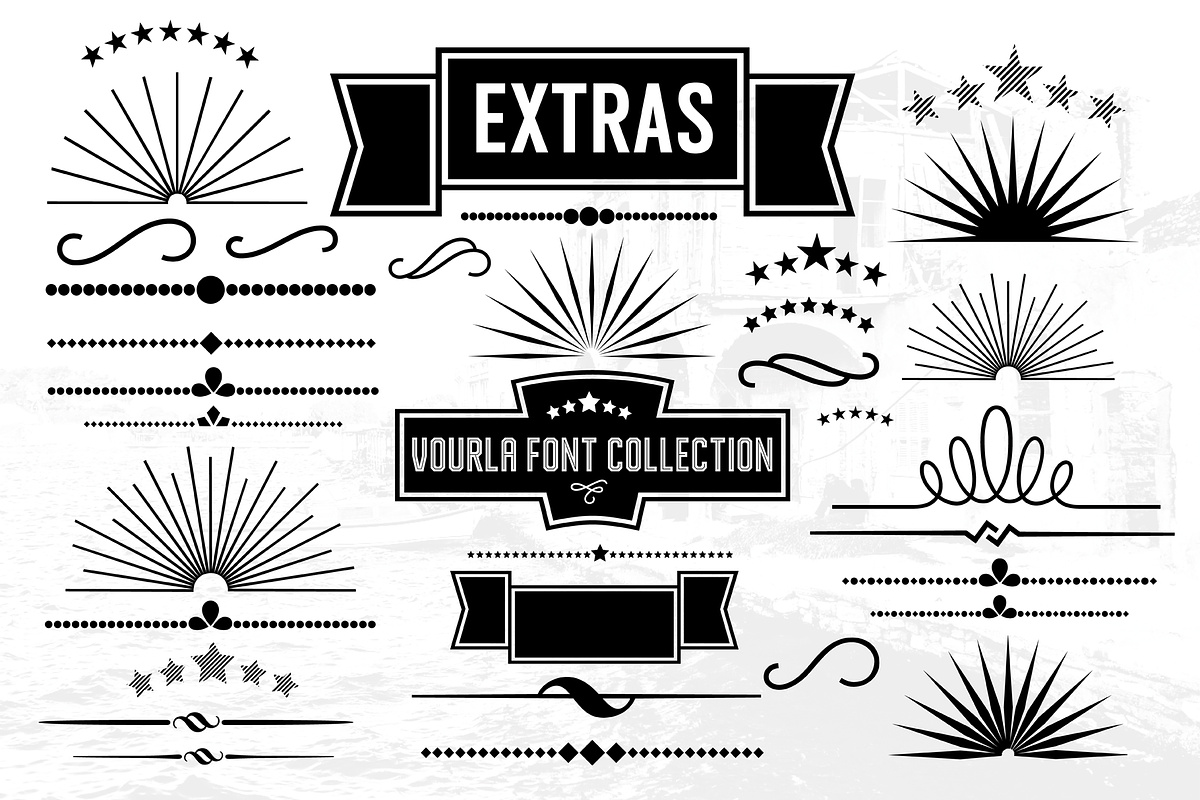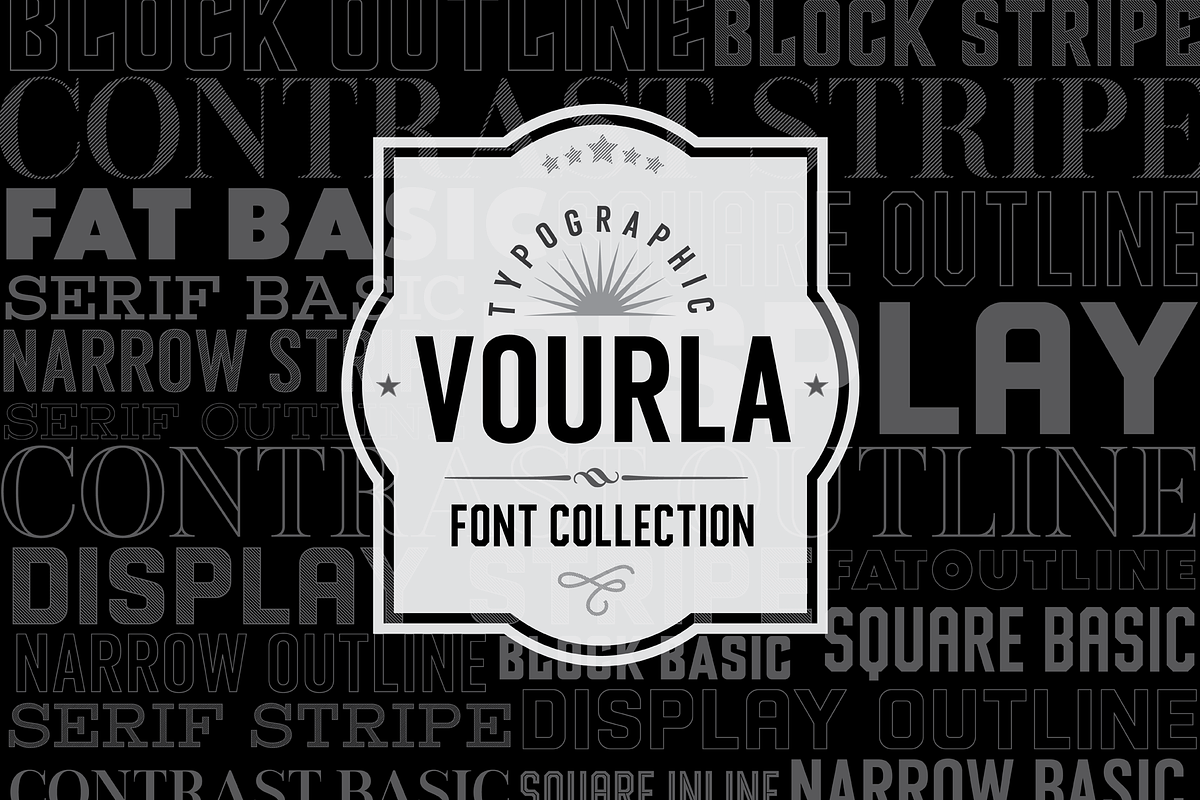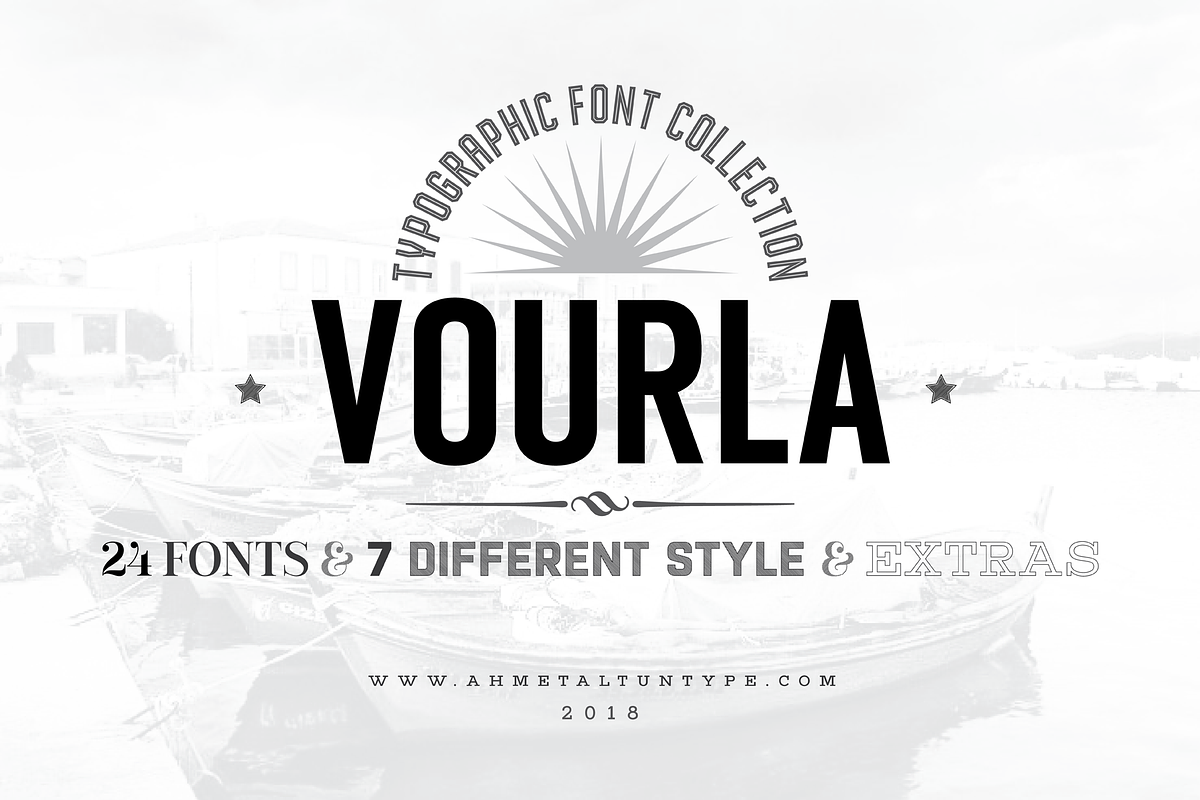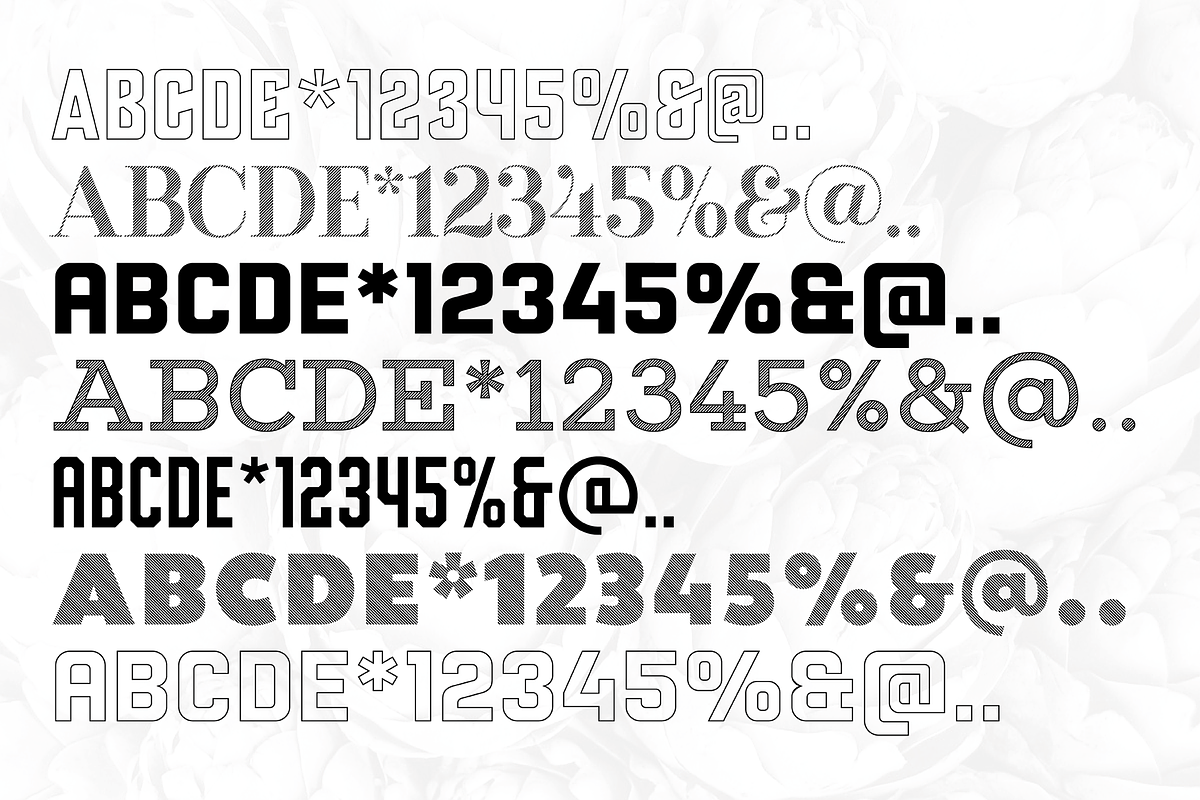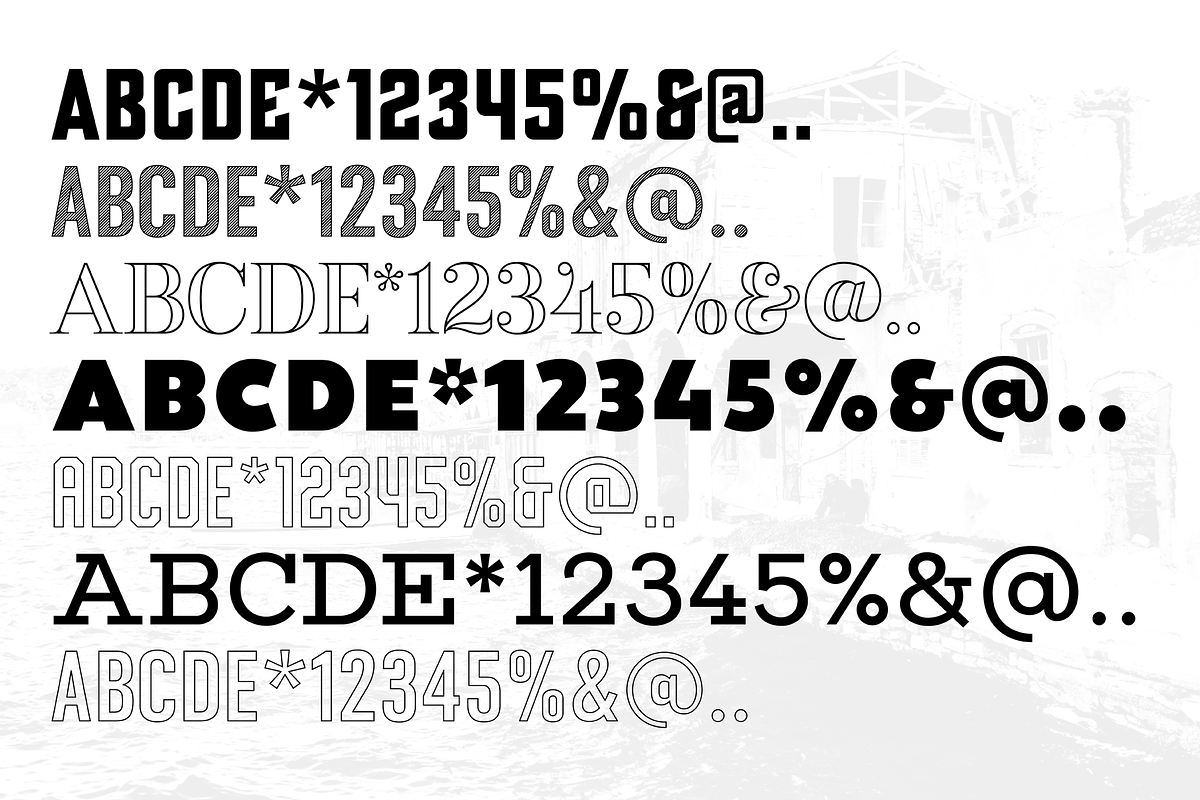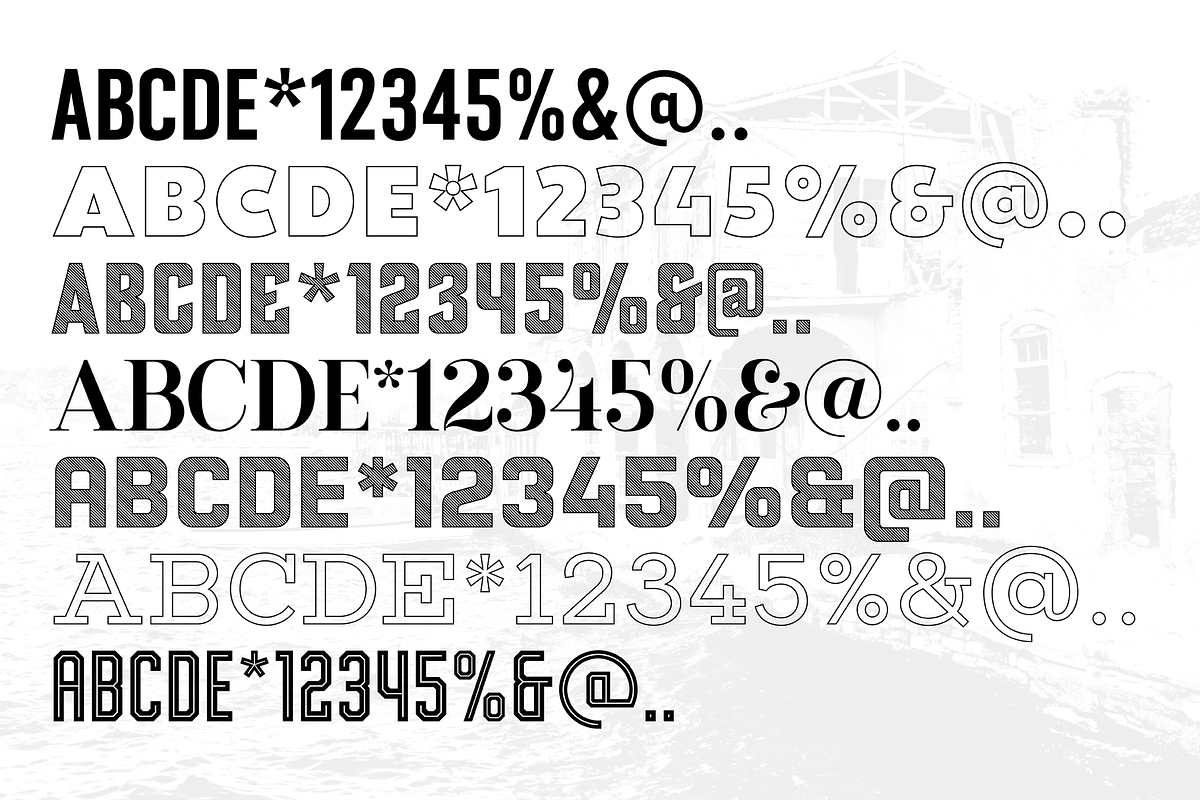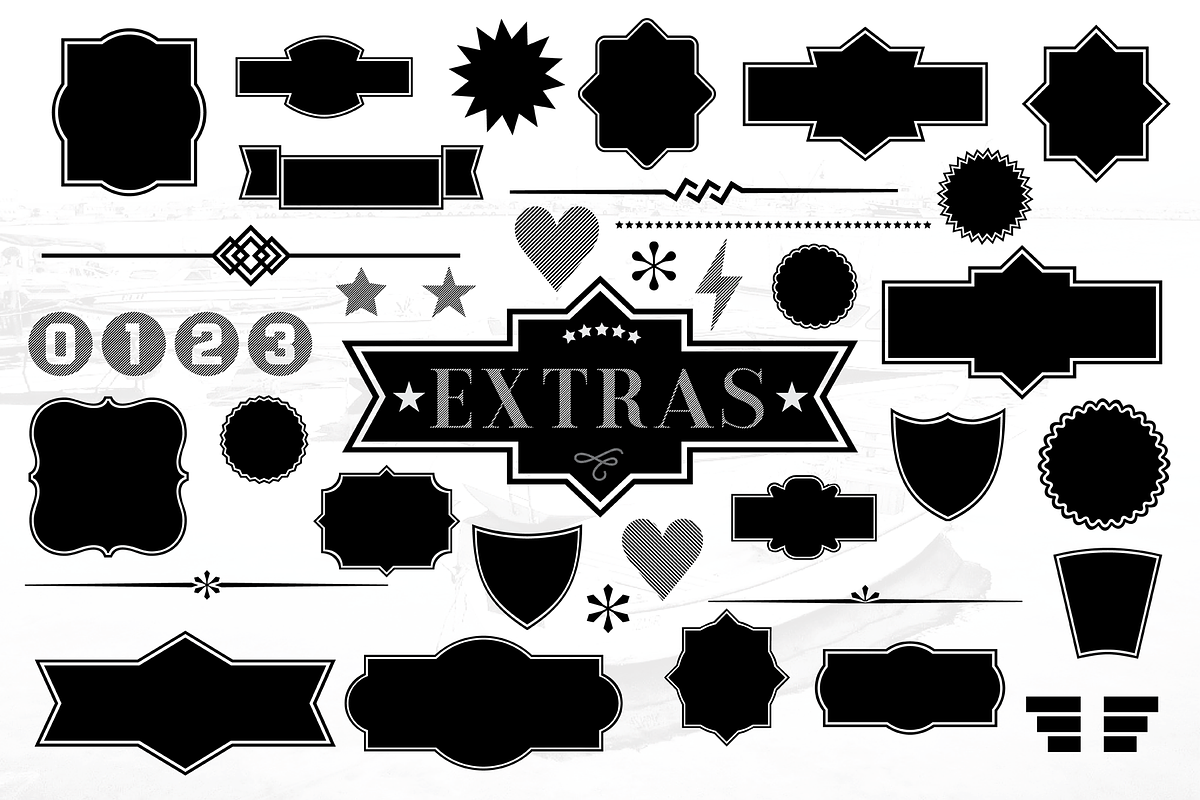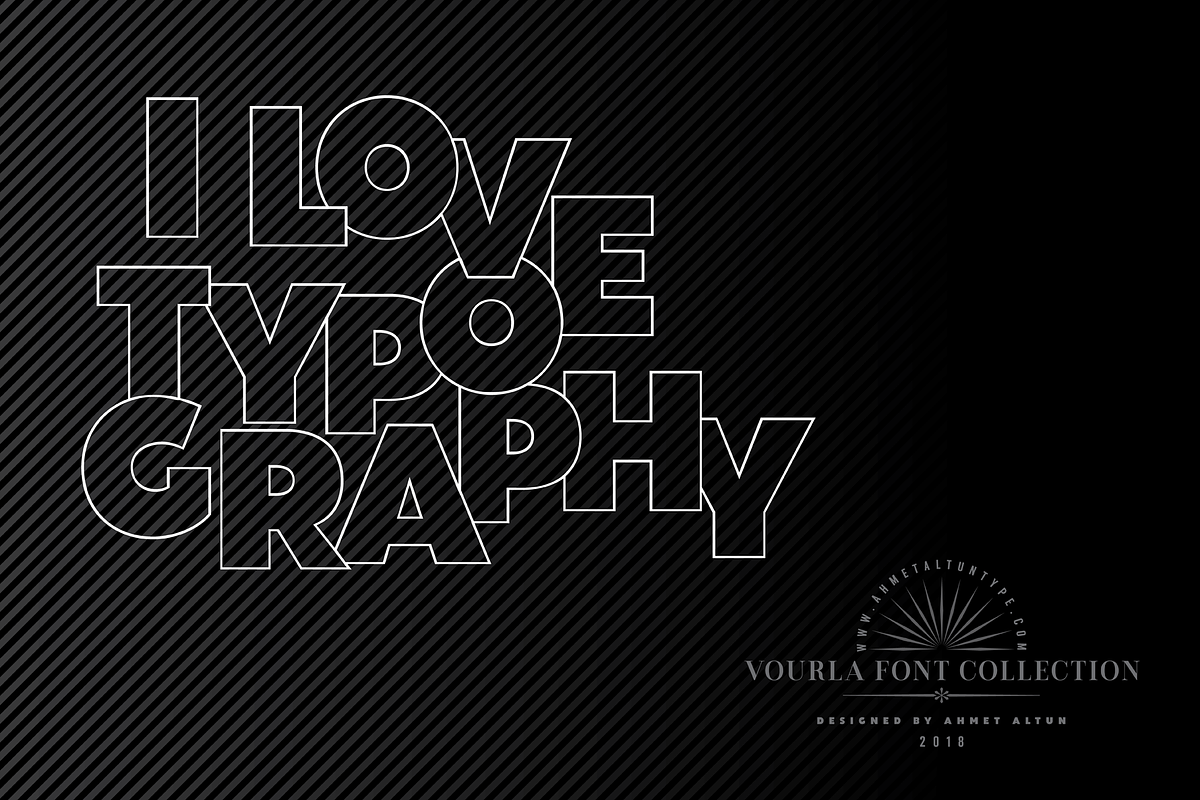
Vourla Font Collection
Vourla Font Collection consists of seven popular styles which are different from each other but get in harmony when they used together. Additionally, it includes all-purpose extras and some fonts' outline and stripe forms. The ornaments can be used easily by pressing the letters with their small or capital forms and numbers on the keyboard.
Vourla Font Collection is a unique and perfect choice to create vintage style or typographic posters and for your several graphic design works.
The name "Vourla" is my lovely town Urla's old town name.
-Block Basic -Block Outline -Block Stripe -Contrast Basic -Contrast Outline -Contrast Stripe -Display Basic -Display Outline -Display Stripe -Fat Basic -Fat Outline -Fat Stripe -Narrow Basic -Narrow Outline -Narrow Stripe -Serif Basic -Serif Outline -Serif Stripe -Square Basic -Square Outline -Square Inline -Extras 1 -Extras 2 -Extras 3
Vourla Font Collection by Ahmet Altun fits naturally into Branding, posters, packaging, typography.